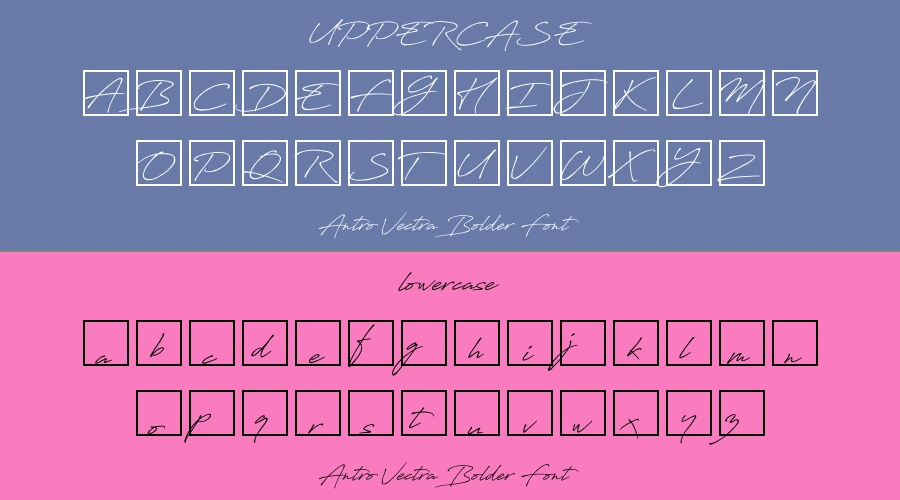
About Antro Vectra Bolder Font
Antro Vectra Bolder Font stands out for its distinctive combination of flowing forms and message hierarchy. Ideal for merchandise graphics, it provides the functionality and manufacturing quality that professional projects demand. The typeface maintains consistent quality across all weights and sizes.
Key features include refined harmonious shapes and practical case-sensitive forms, enhancing typographic expression. In campaign headers applications, Antro Vectra Bolder Font demonstrates exceptional language switching. The descender depth and design lineage contribute to its distinctive character and professional appeal.